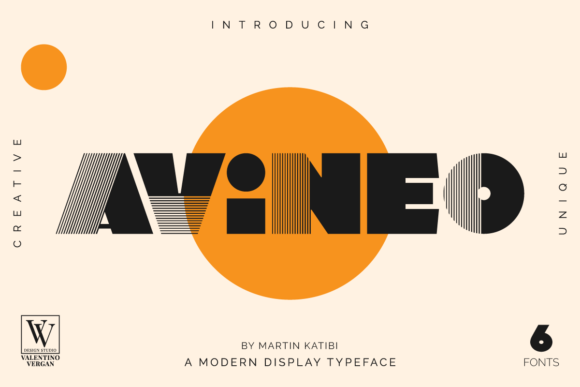
Introducing Avineo Font - Your Creative Ally for Sizzling Designs!
Prepare to be mesmerized by Avineo Font, a display font that's pure design brilliance. This modern marvel is a visual symphony, taking your designs to new heights of sophistication and style. Whether you're crafting a captivating logo, a bold headline, or a striking poster, Avineo Font is your secret weapon.
With its crisp lines and confident curves, Avineo Font exudes a timeless elegance that's sure to leave a lasting impression. Its versatility knows no bounds, seamlessly adapting to a myriad of creative projects. Dive into the world of corporate identity and brand identity, where Avineo Font effortlessly elevates your visual presence. Make a statement in the apparel industry with designs that radiate originality. Create posters that ignite the imagination, music that captivates the soul, and movies that transport audiences to other realms.
Avineo Font isn't just a font; it's a gateway to boundless creativity. Its presence graces magazines and books, adding a touch of allure to every page. Unleash your inner artist and bring comic and cartoon characters to life with Avineo Font's playful charm. Whether you're captivating audiences on YouTube or Instagram, or building an engaging website, Avineo Font is your trusted companion.